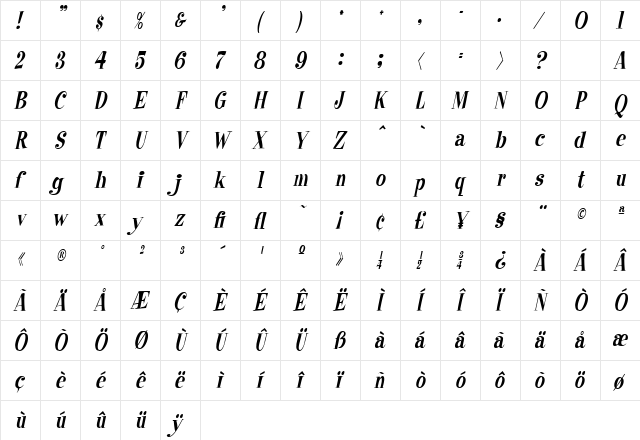
RaskinCondensed Italic Font Preview
Design Context for RaskinCondensed Typeface
RaskinCondensed is a composed and adaptable typeface that performs quietly and consistently across a wide range of design contexts. The slanted form adds forward momentum and visual energy. The condensed width makes it efficient for tight spaces without sacrificing legibility.
Pro Tip: Try RaskinCondensed for annotation and caption copy alongside an upright companion — the contrast in angle creates a dynamic but ordered typographic system.